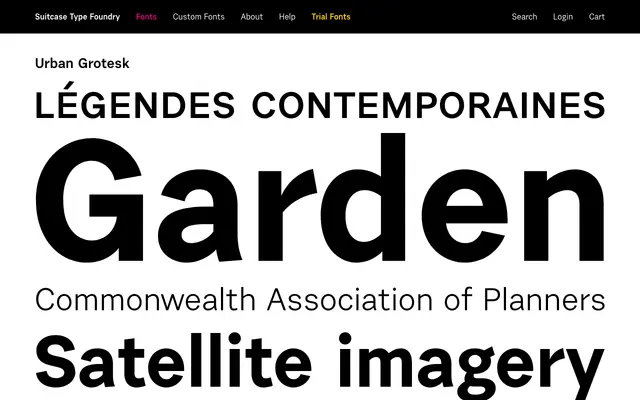
Urban Grotesk
A grotesque sans-serif from Suitcase Type Foundry with a name suggesting contemporary urban application.
Urban Grotesk sits within the grotesque sans-serif tradition, designed for use in contexts where a clean, neutral typeface is needed. The page content provided is minimal, making it difficult to assess the full extent of its weight range, language coverage or distinguishing characteristics. As a Suitcase Type Foundry release, it likely targets professional editorial and branding use.
The name and foundry context point to a grotesque sans-serif. Suitcase Type Foundry produces geometric and grotesque Latin typefaces, and the 'Grotesk' suffix confirms the classification.